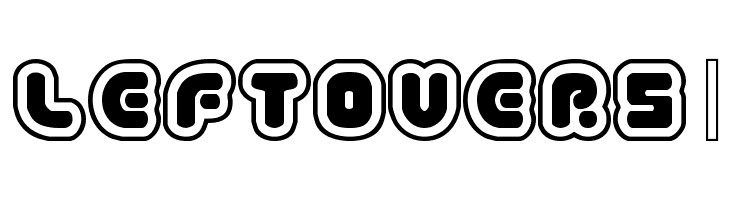
A bold, playful font with a double-outline effect and rounded characters.
A bold, outlined font with rounded edges and a modern, geometric style.
A bold, geometric font with a futuristic outline style.